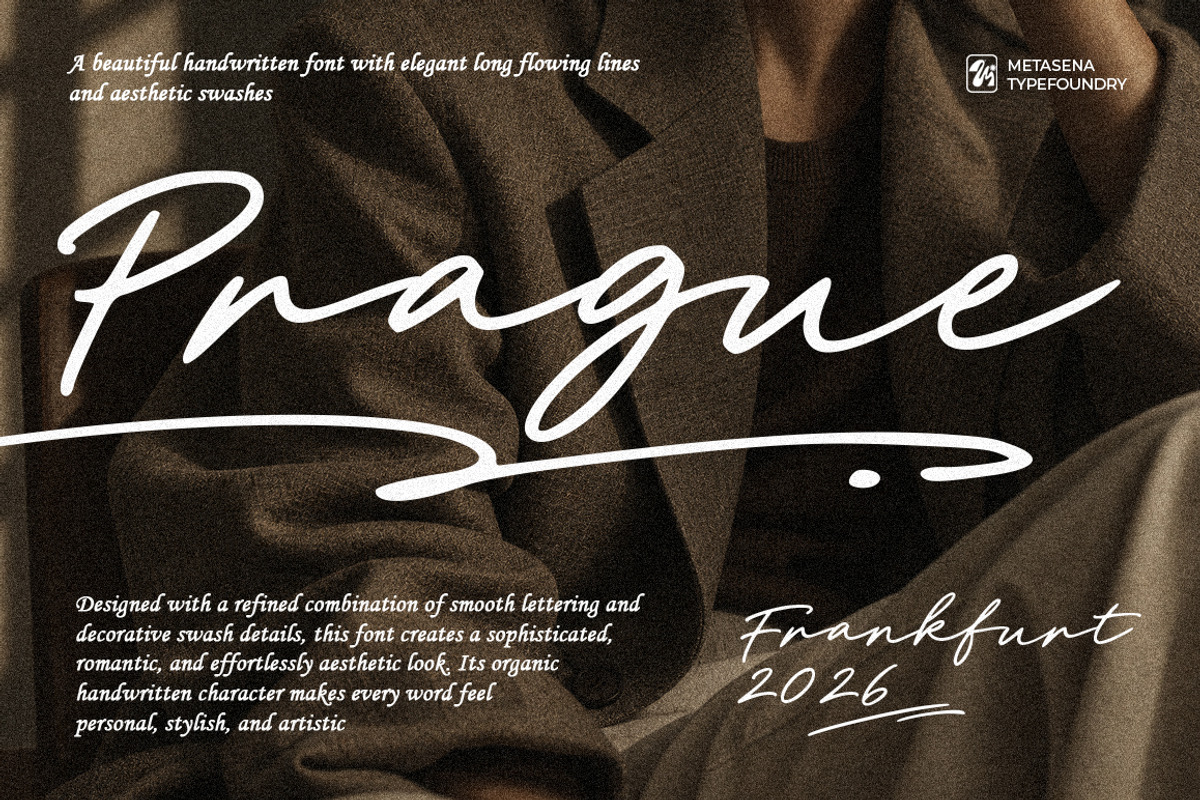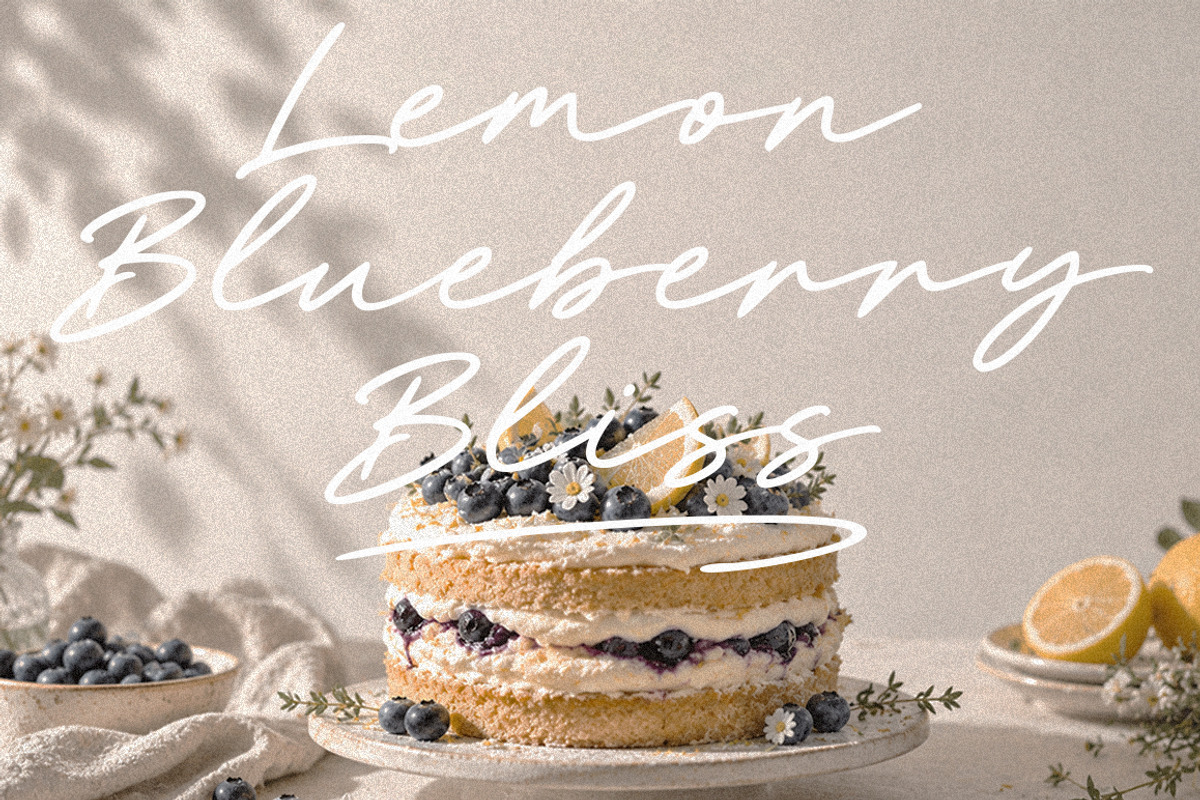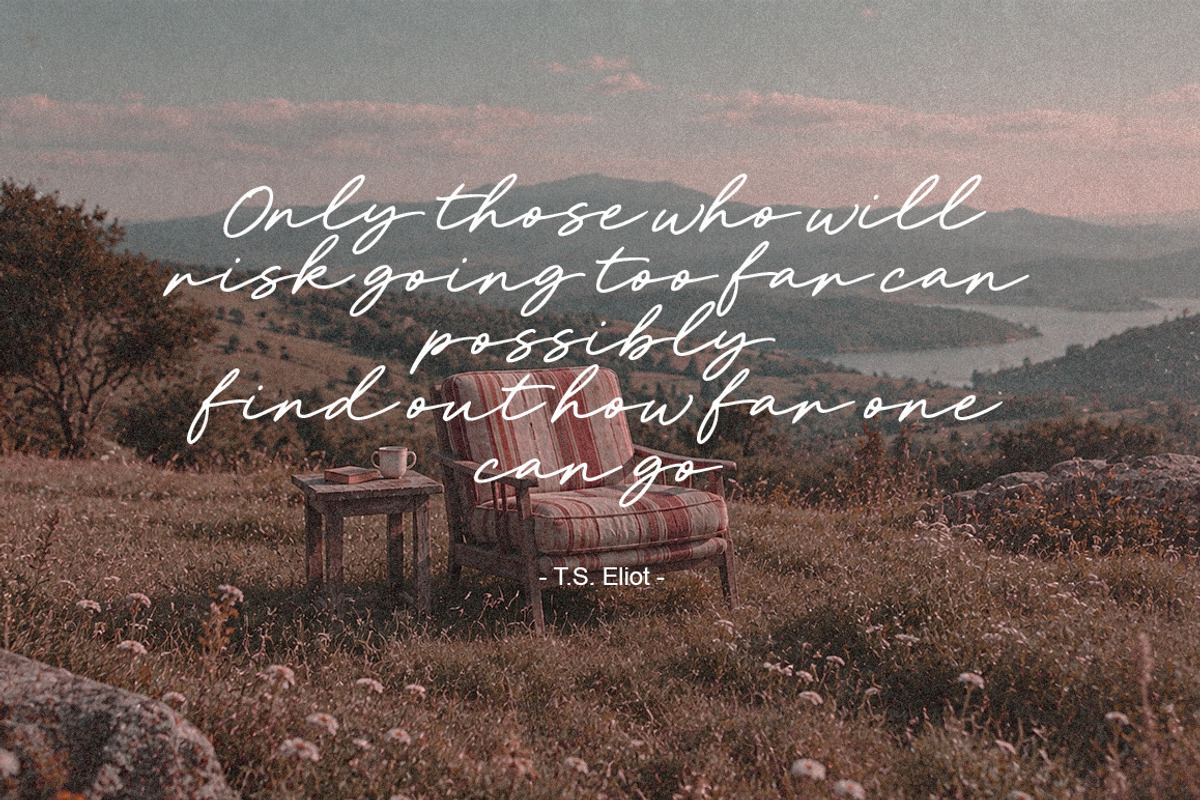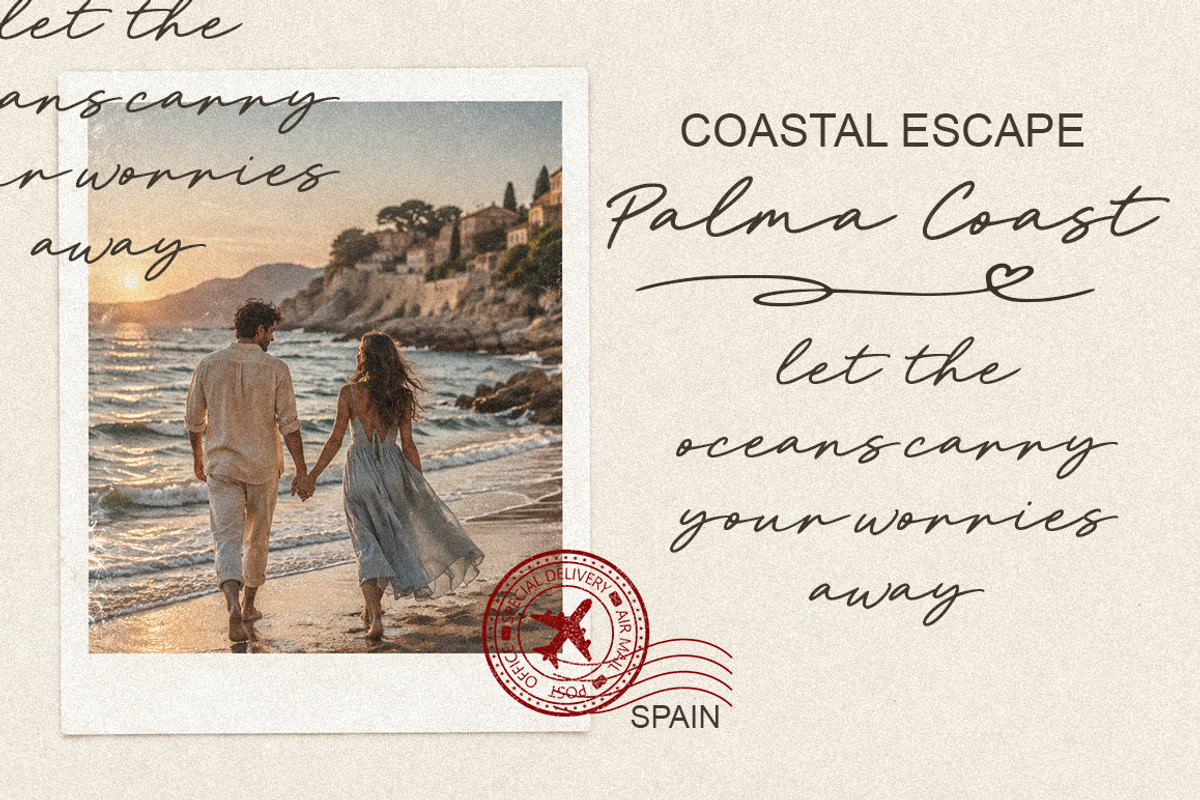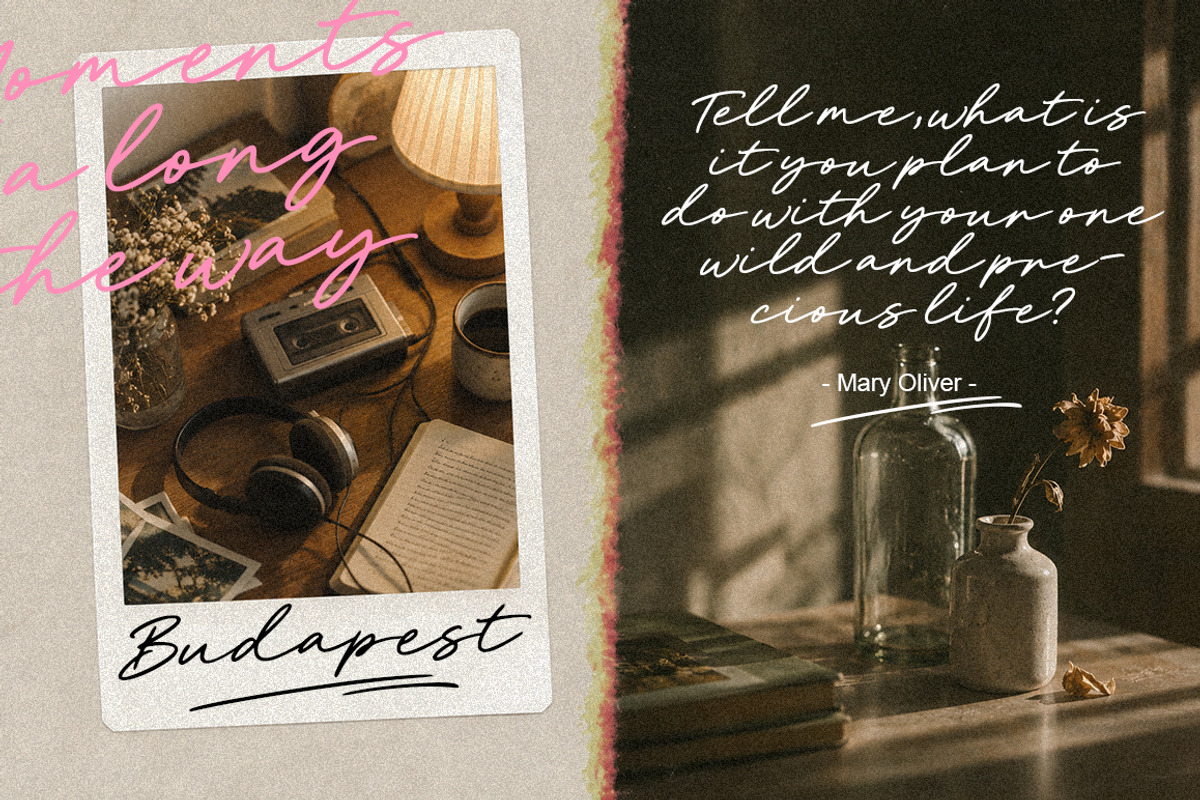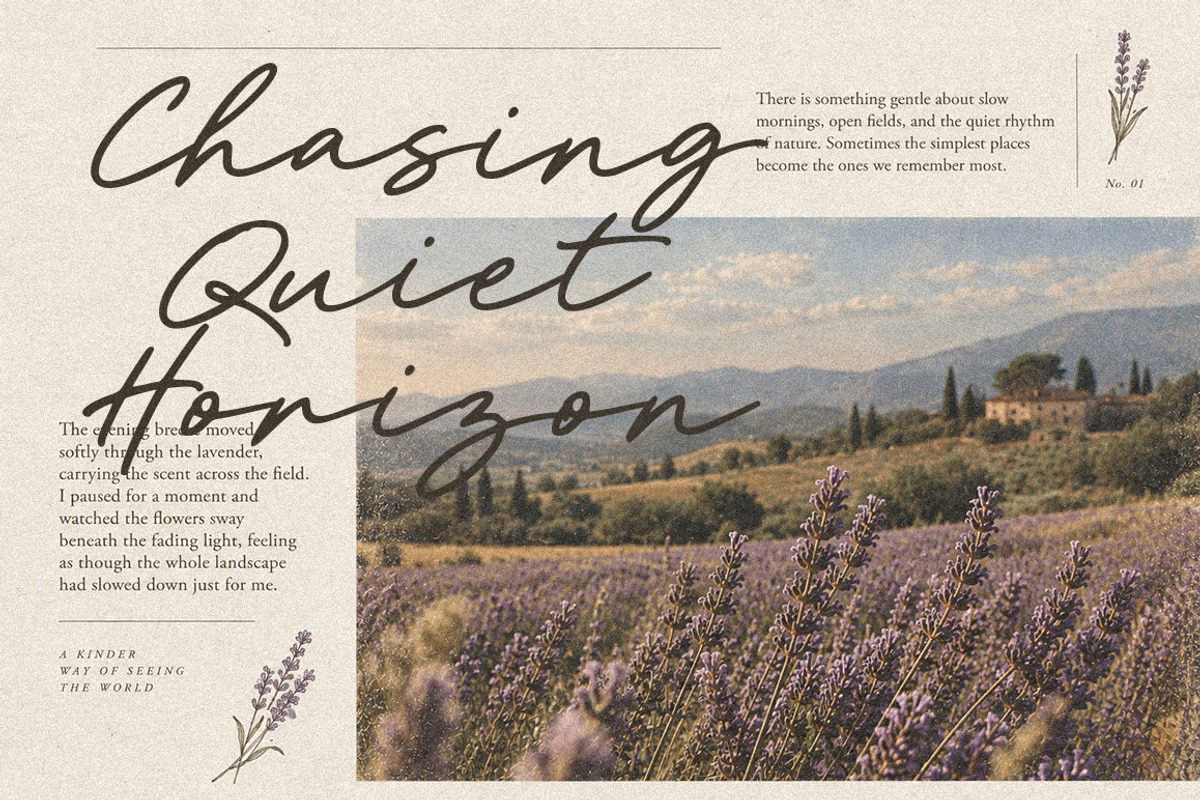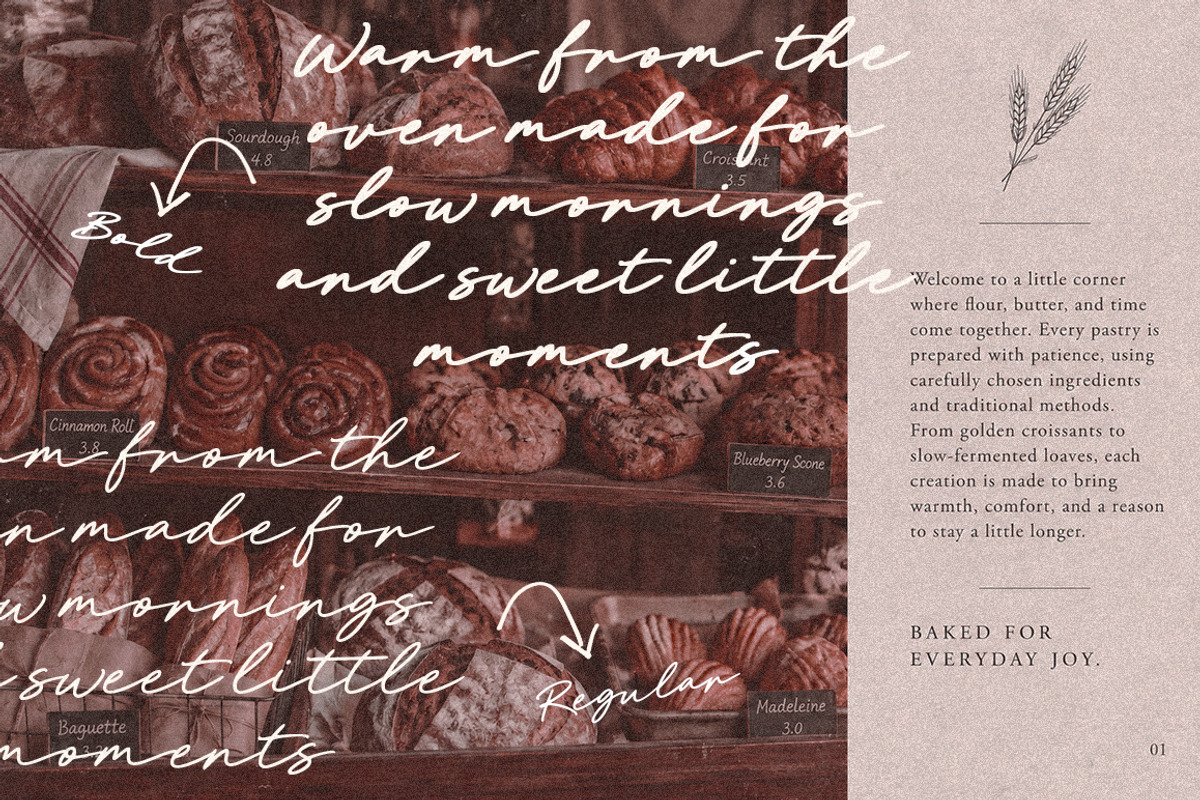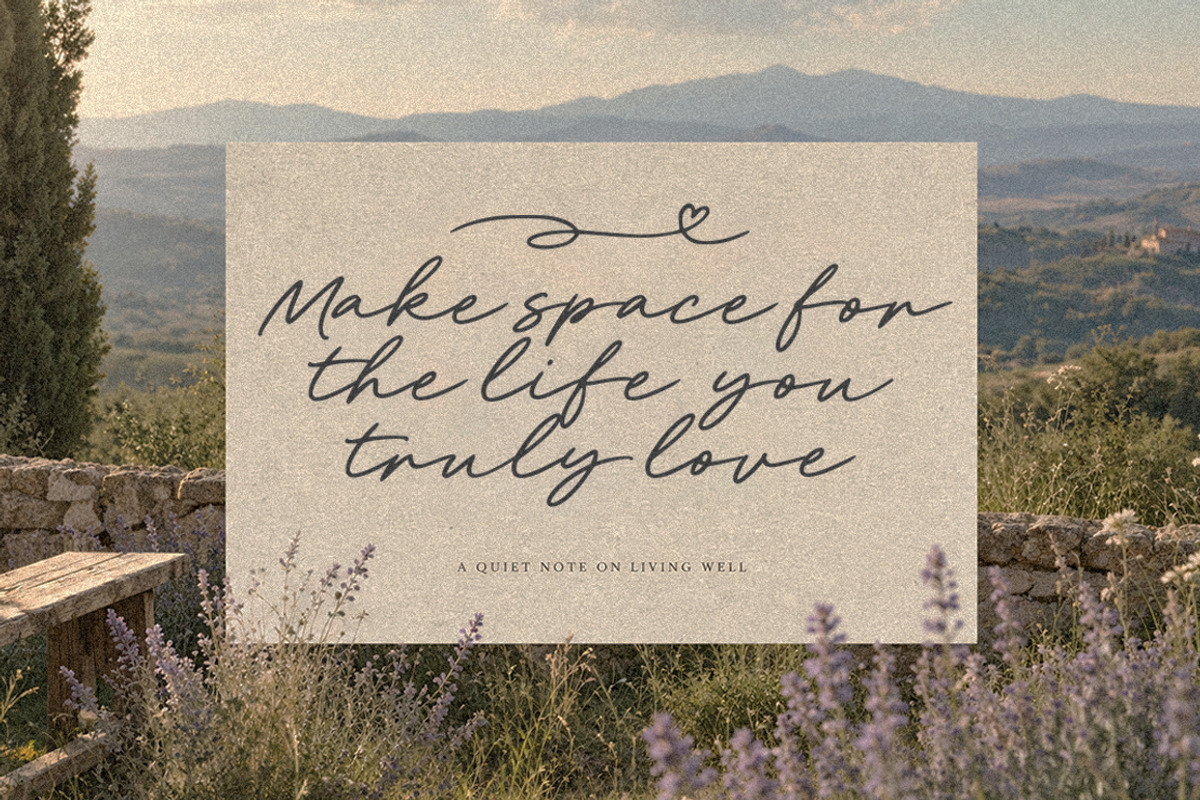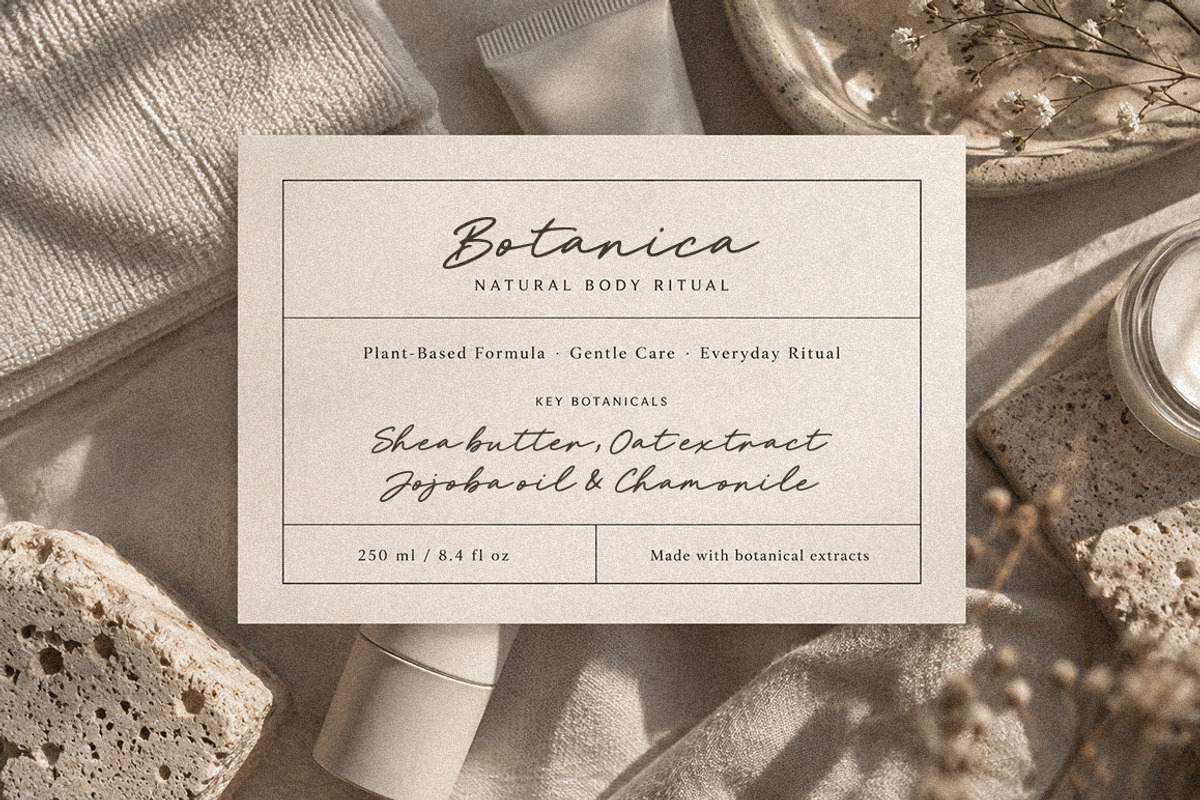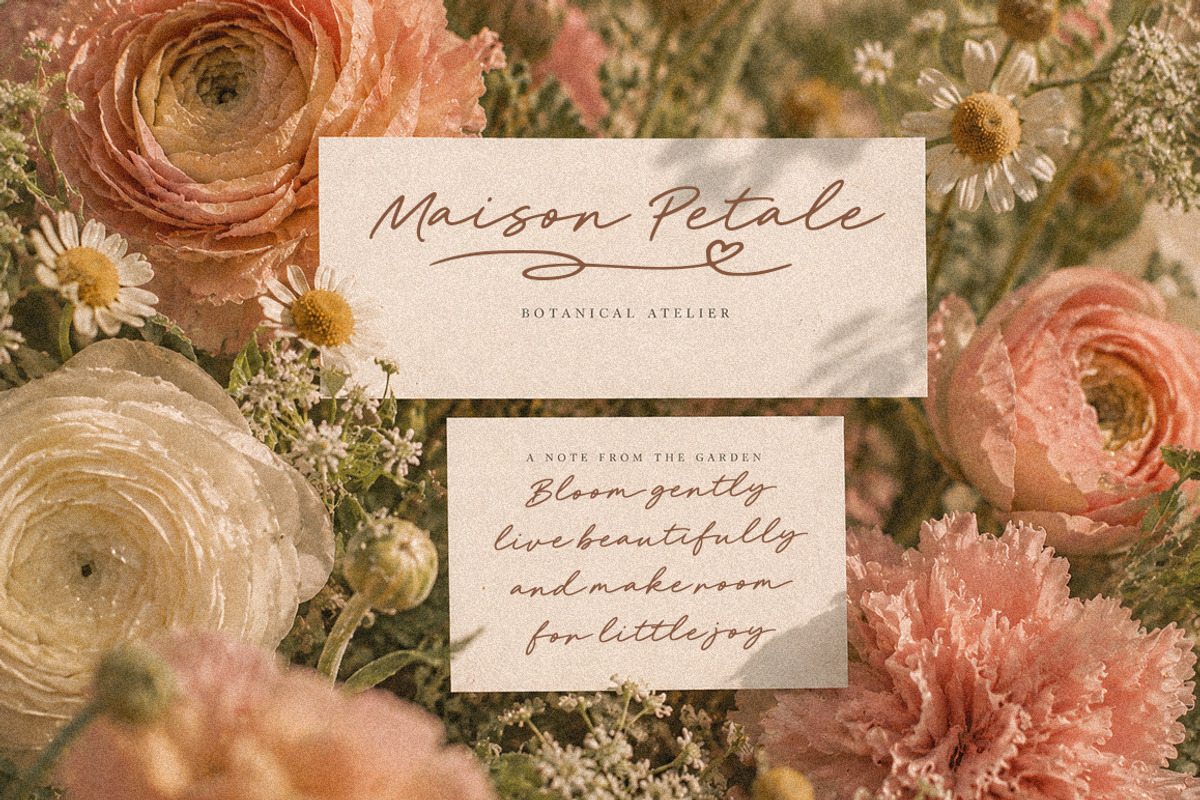
Prague | 02 Font with Swash
Prague Semi Signature
Prague 2 font with Swash is an elegant and sophisticated signature font designed with a graceful handwritten character, flowing strokes, and beautiful decorative swashes. Its refined letterforms create a luxurious yet natural appearance, making it perfect for projects that need a personal, stylish, and artistic touch.
The family includes 2 font styles: Regular and Bold, giving you the flexibility to create both delicate and more expressive typography. The additional swash elements add elegant flourishes and extended strokes that beautifully enhance names, titles, logos, invitations, branding, packaging, wedding stationery, fashion designs, social media graphics, and editorial projects.
With its combination of elegant signature lettering, smooth curves, expressive swashes, and two versatile weights, Prague Semi Signature offers a sophisticated handwritten aesthetic that feels both modern and timeless.
Prague Semi Signature Regular
Prague Semi Signature Bold
Elegant Swash Elements